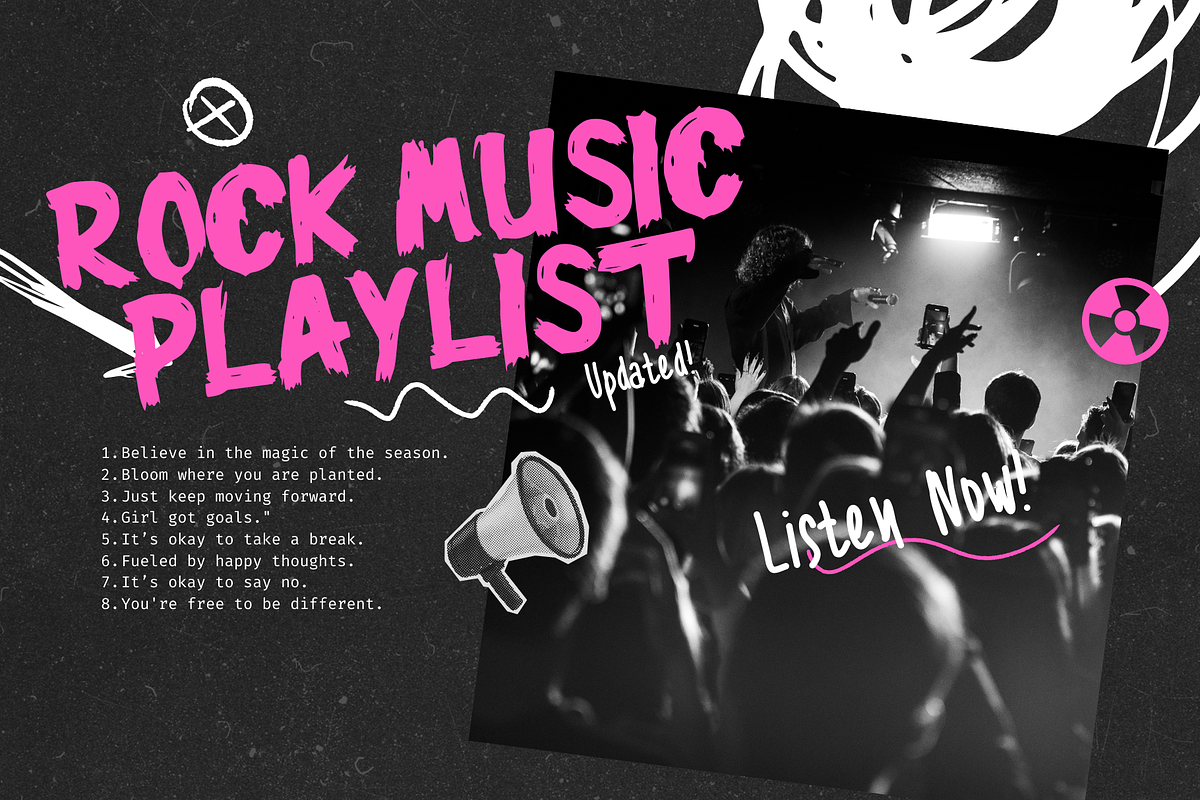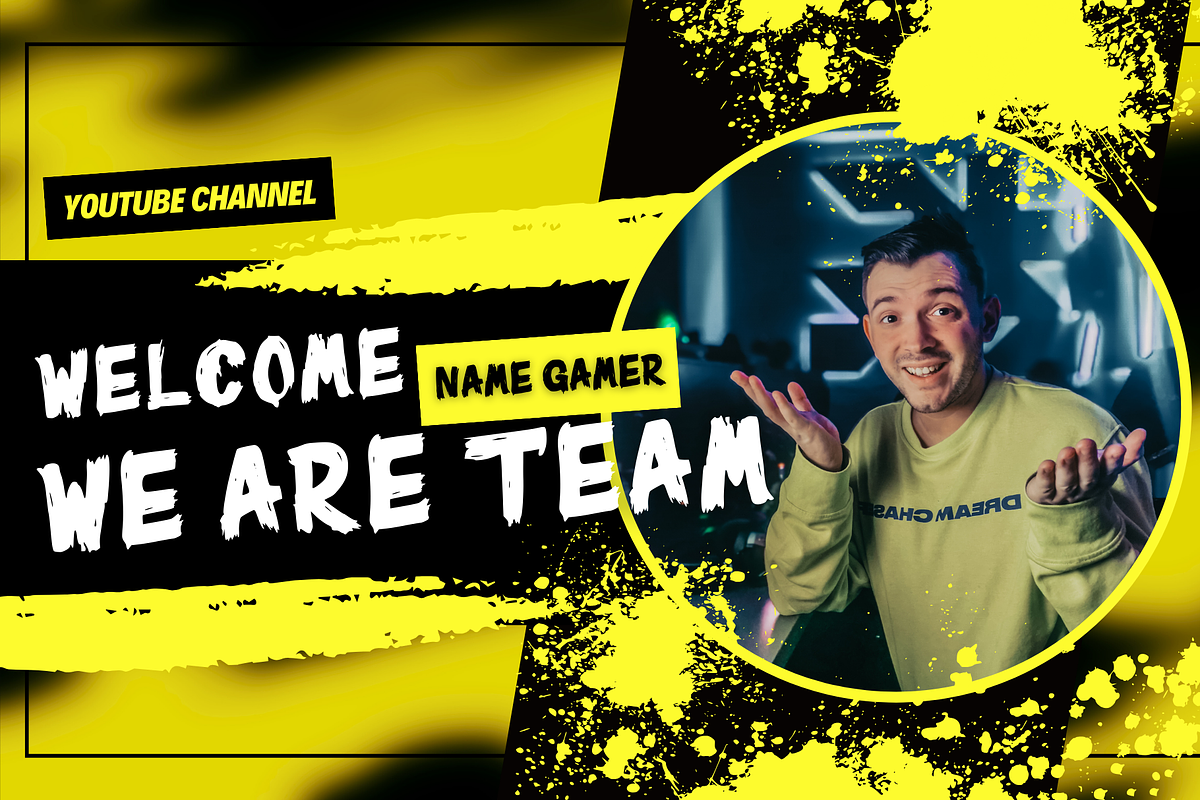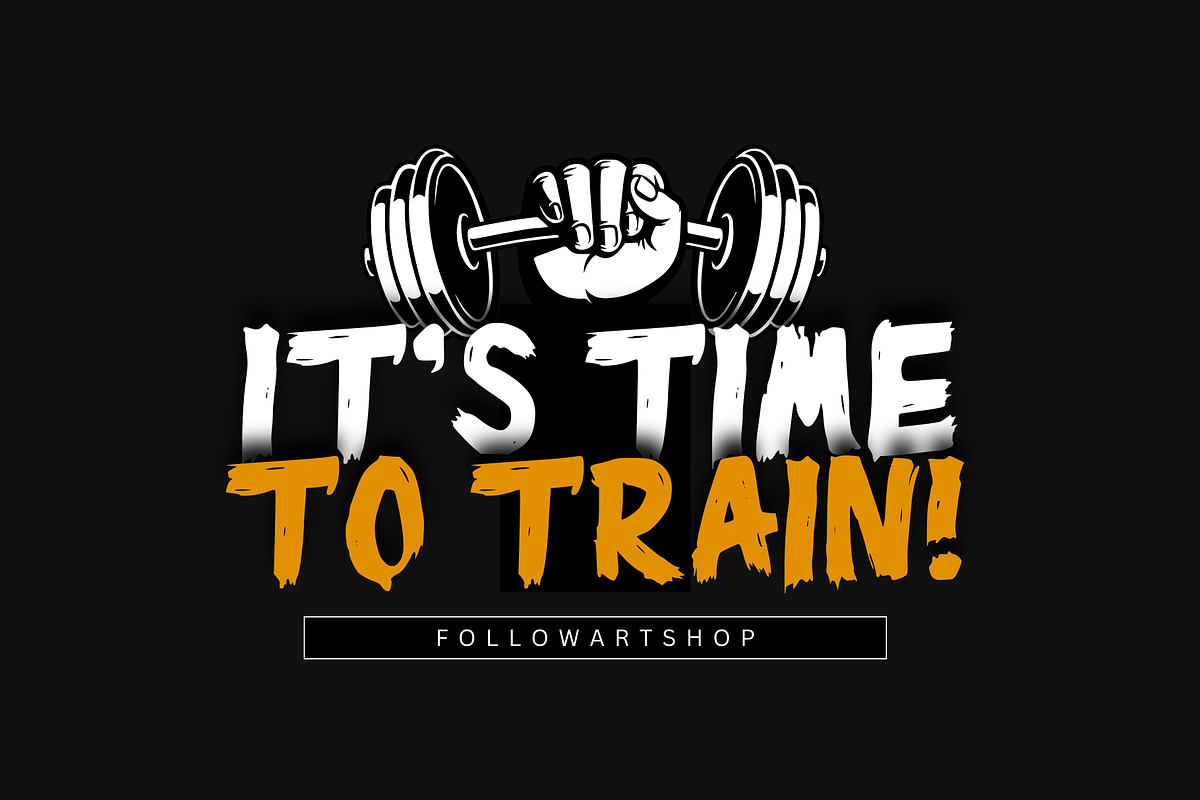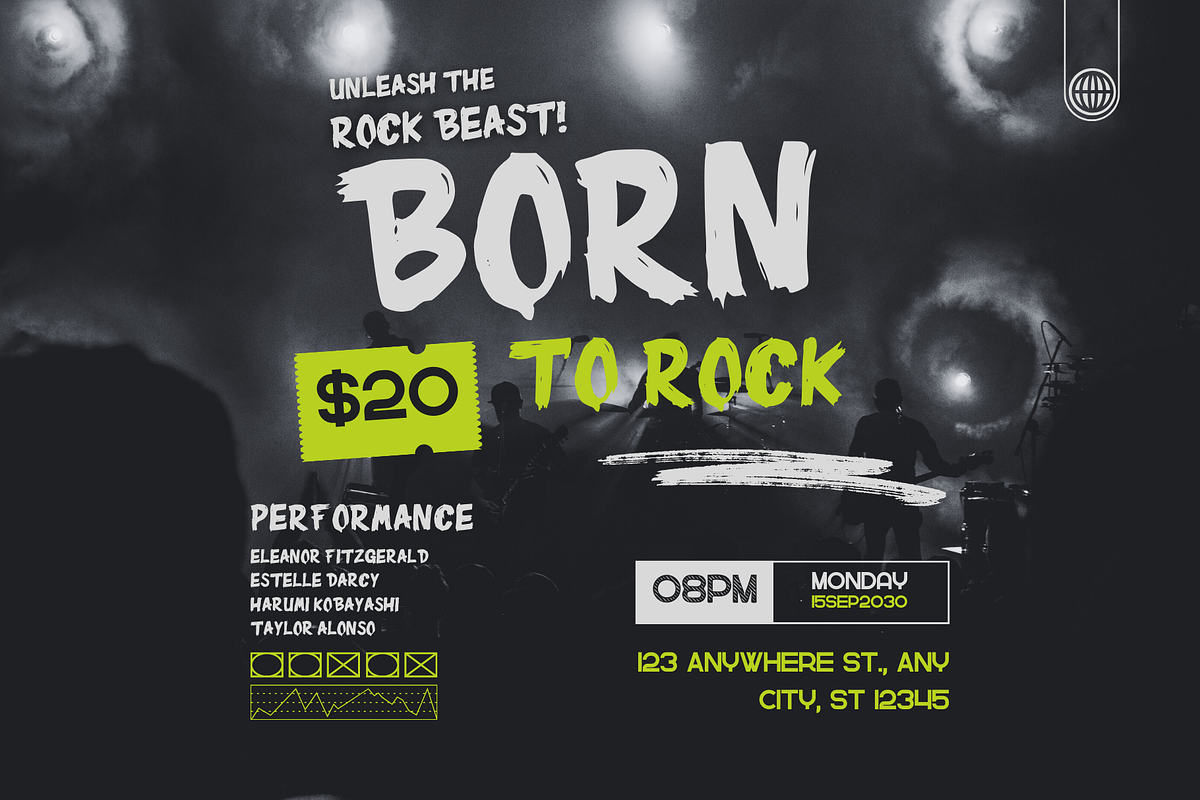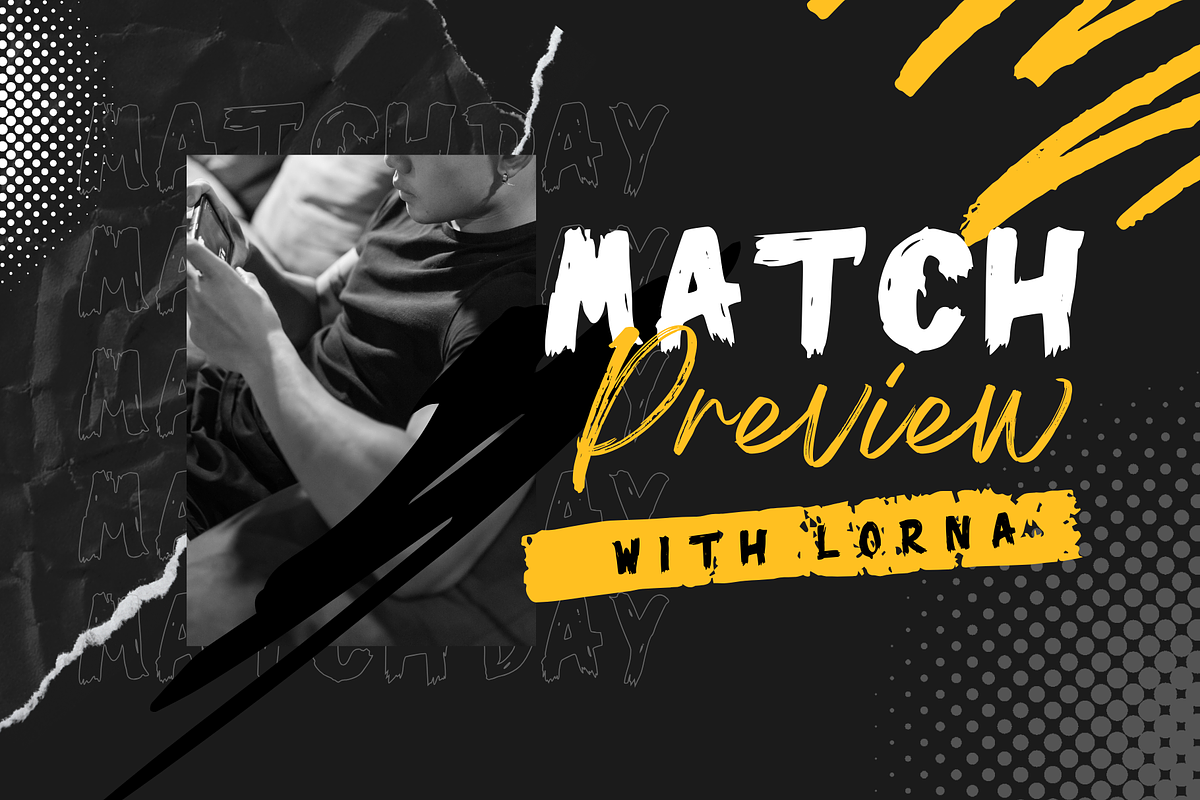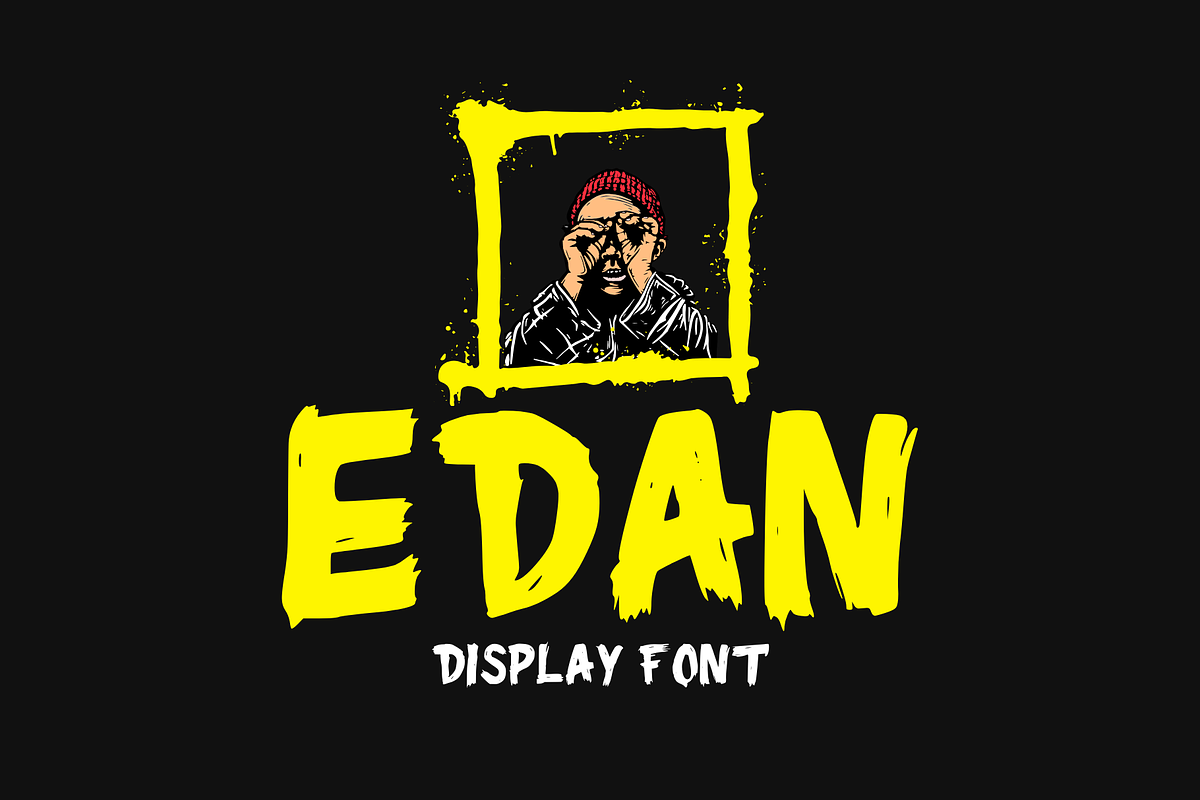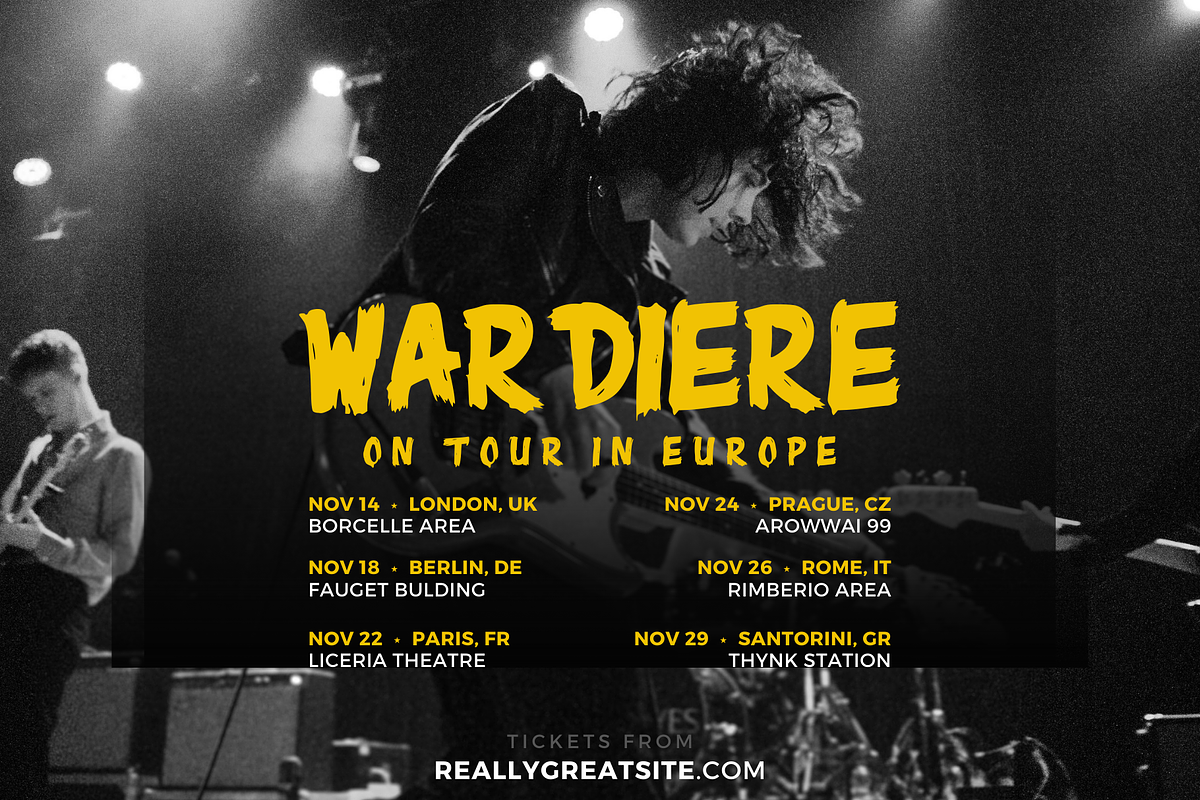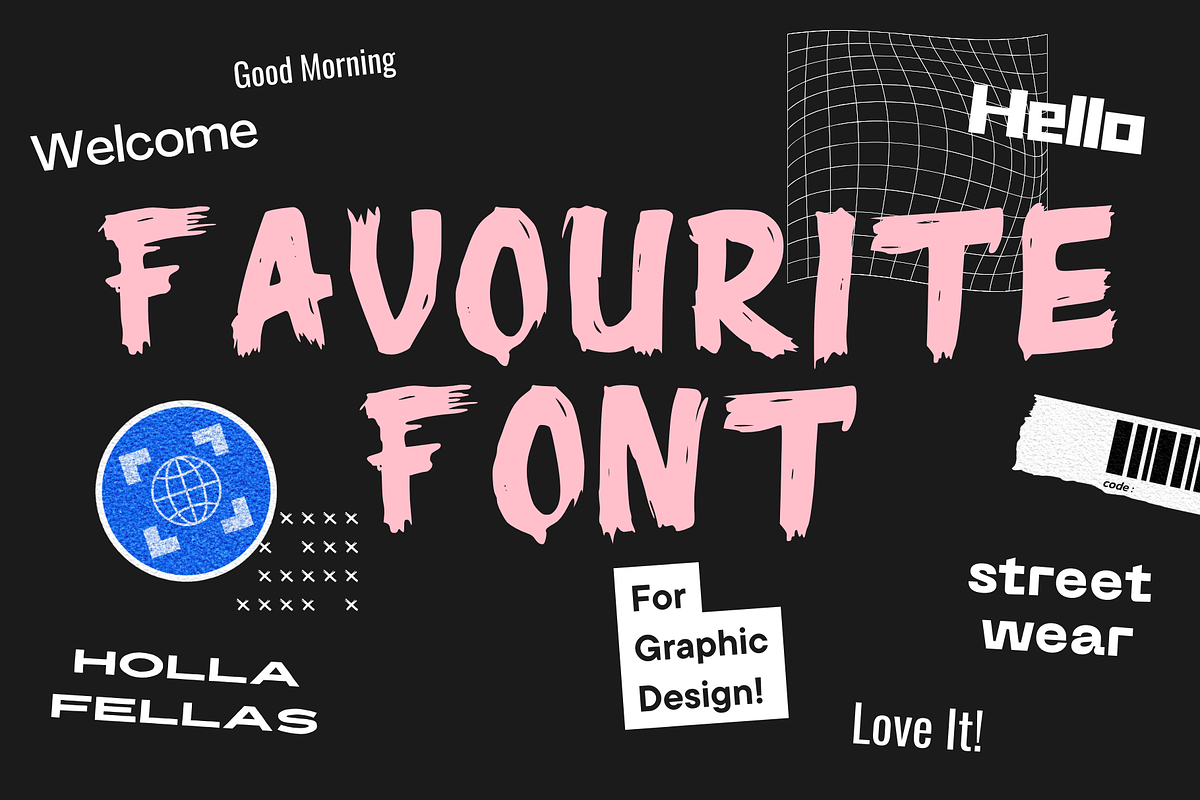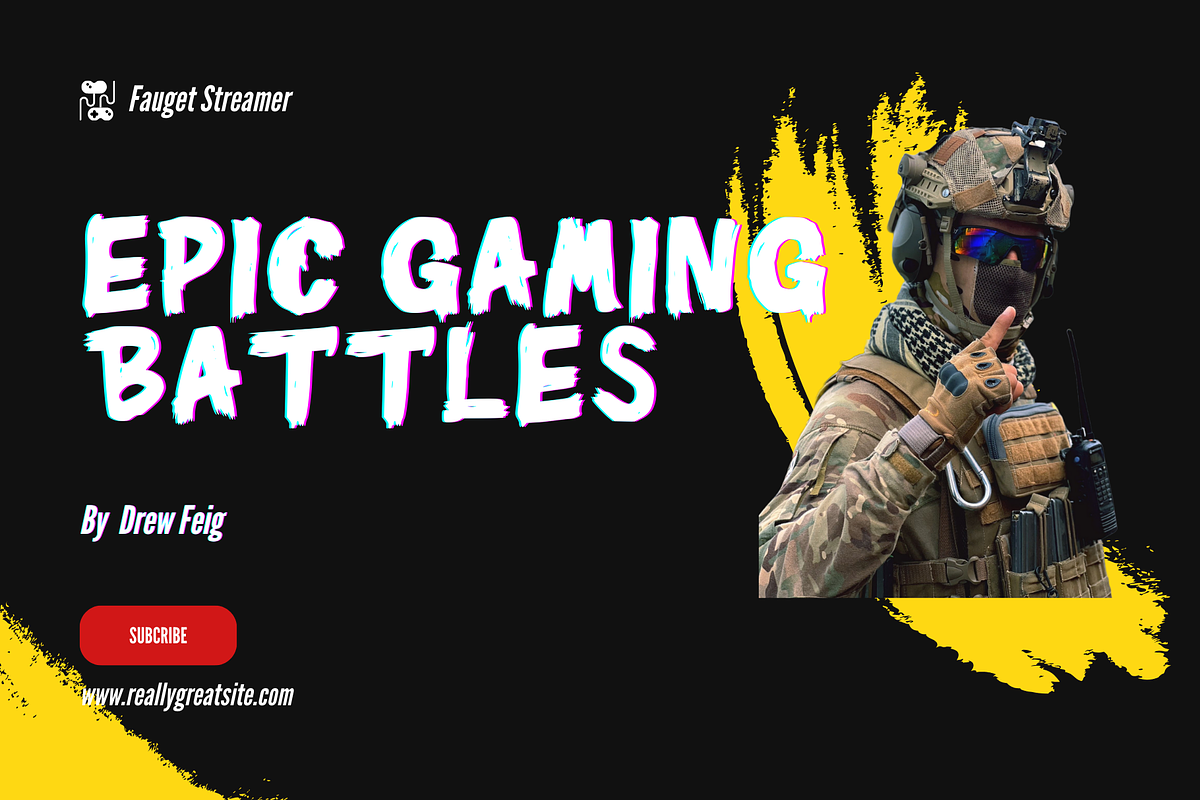
Edan Font
About the Product Inspiration from mental pressure became the basis of Edan Font, a display font type that's highly suitable for designs related to this theme. This font is ideal for use in various mediums like movies, documentaries, logos, posters, games, book covers, as well as titles, and is also apt for other projects. By incorporating this font into your creative ideas, you will see how it can distinguish your work!